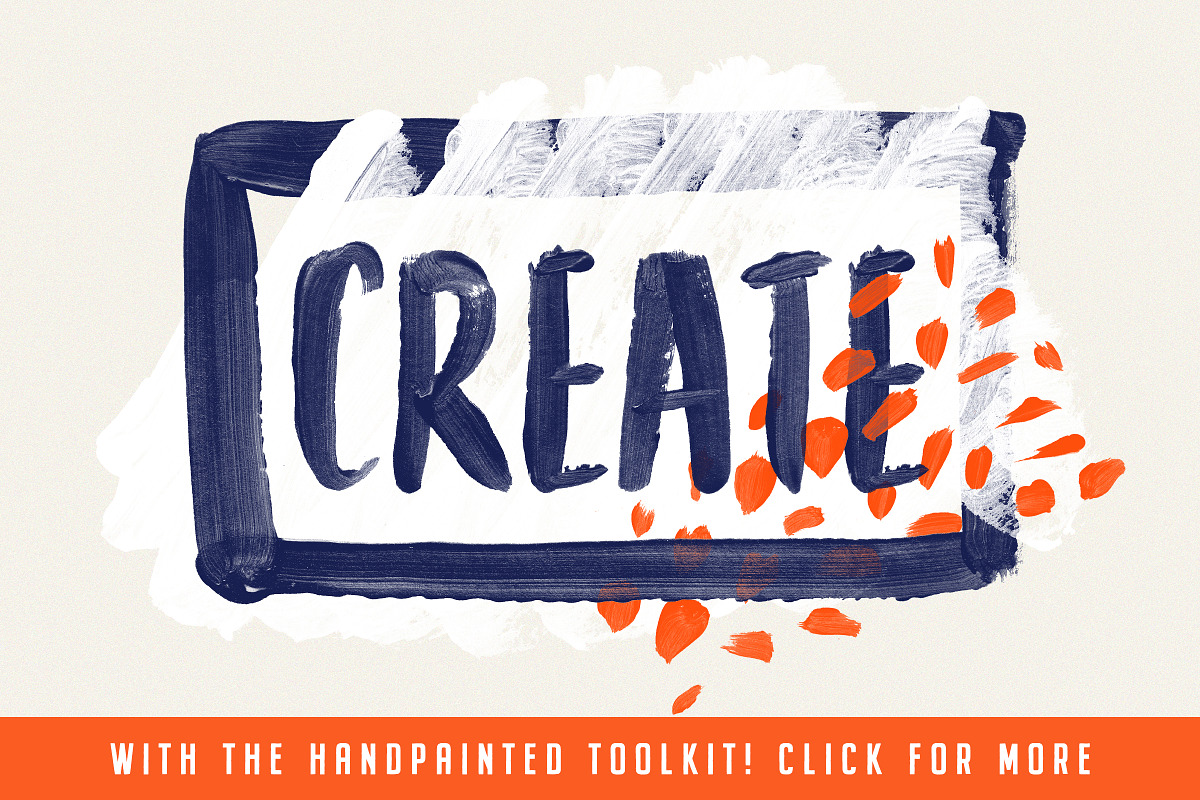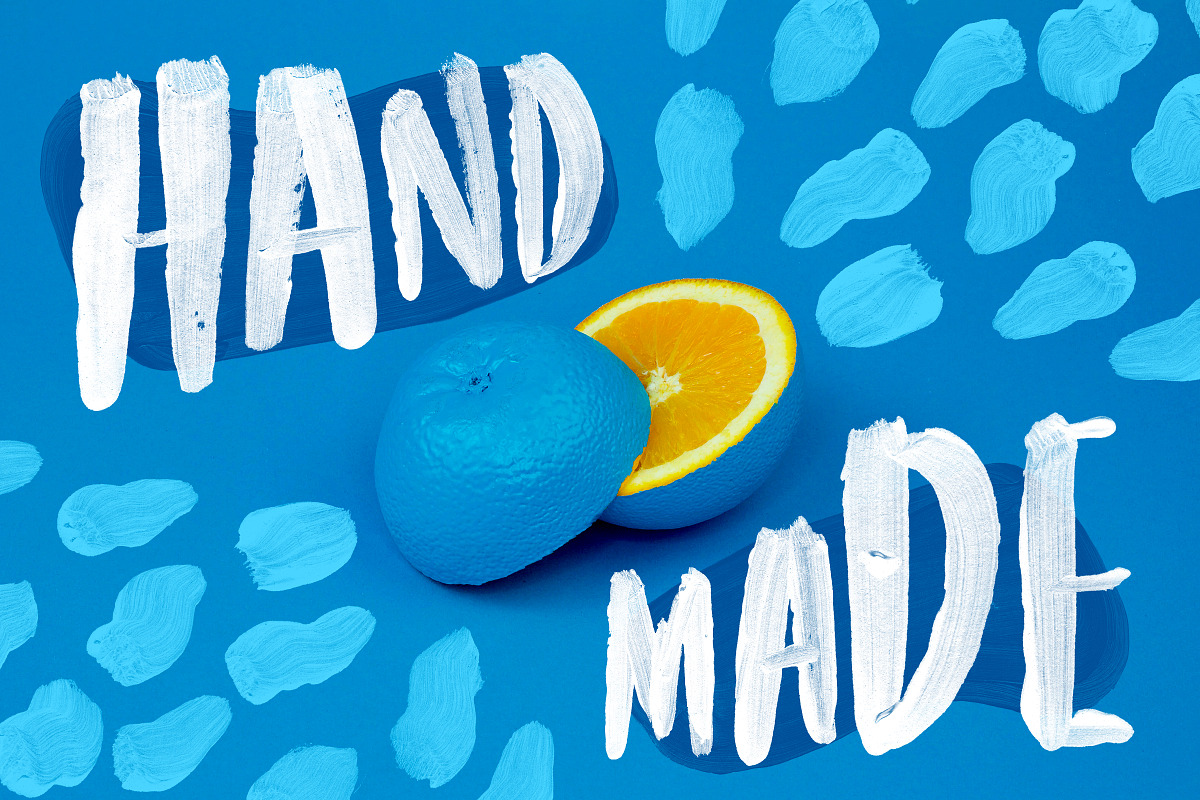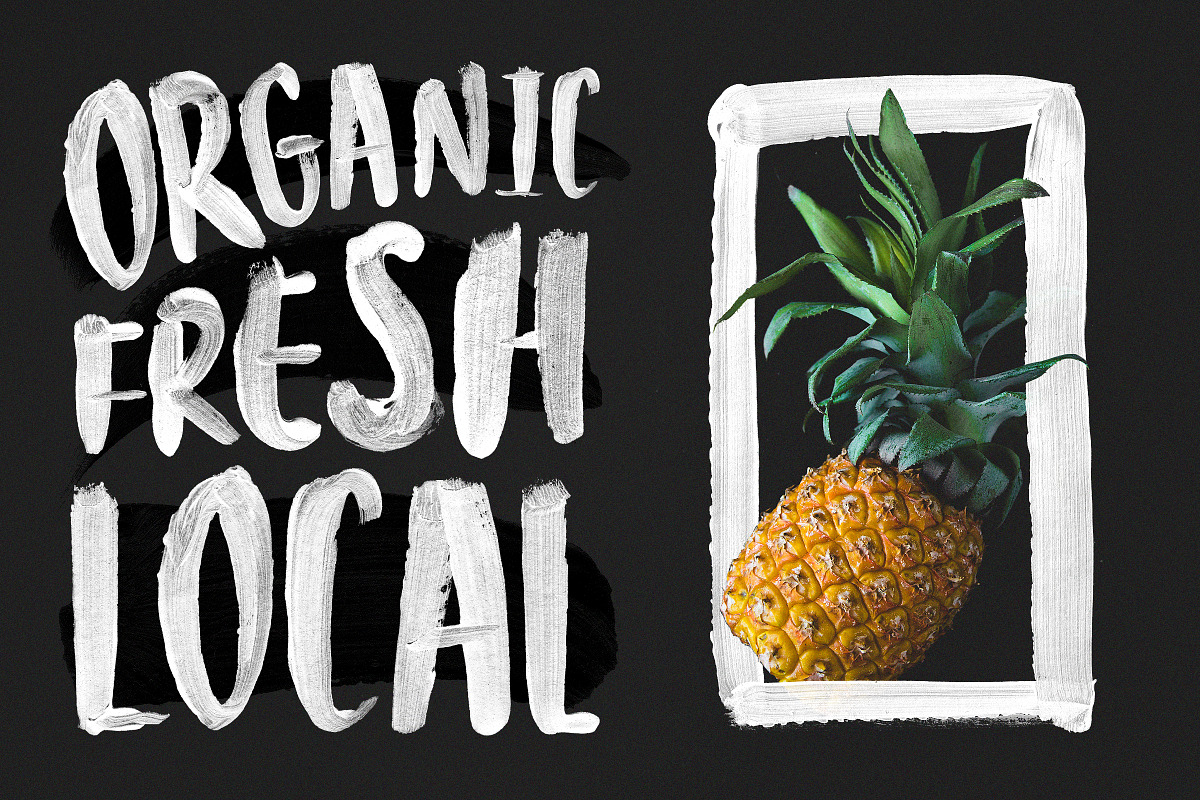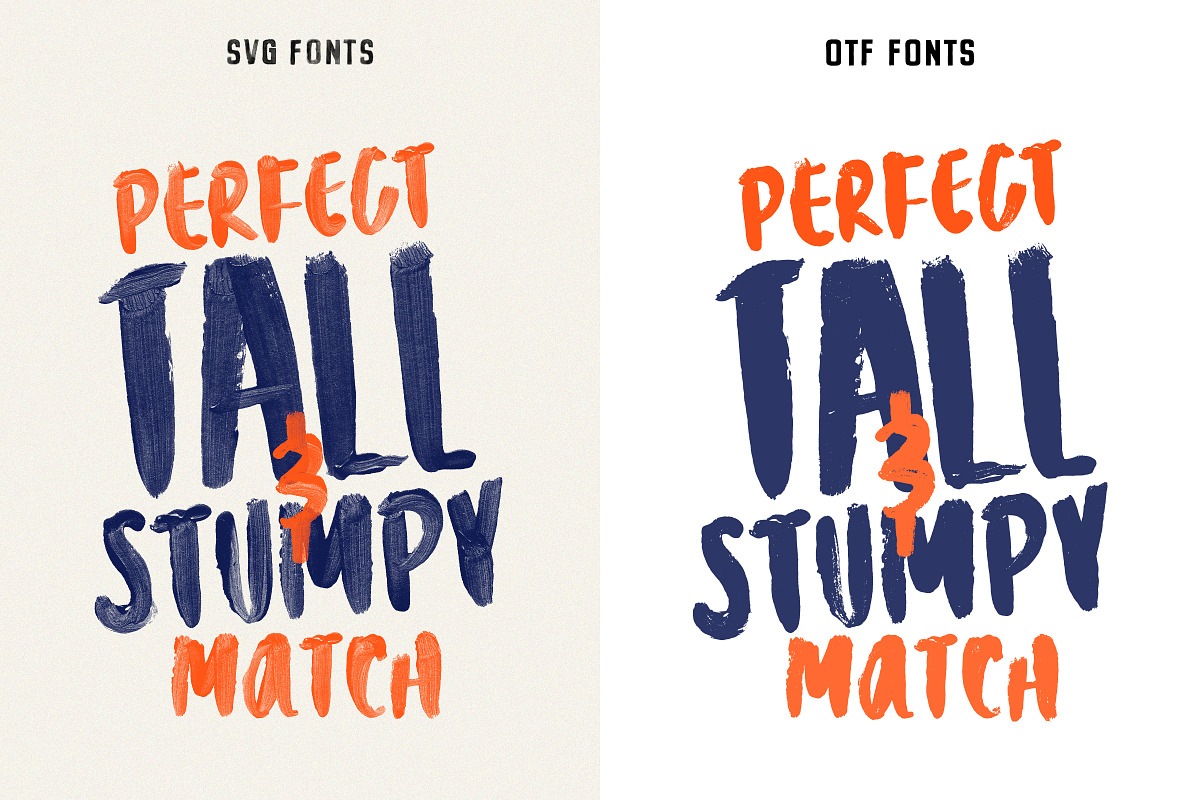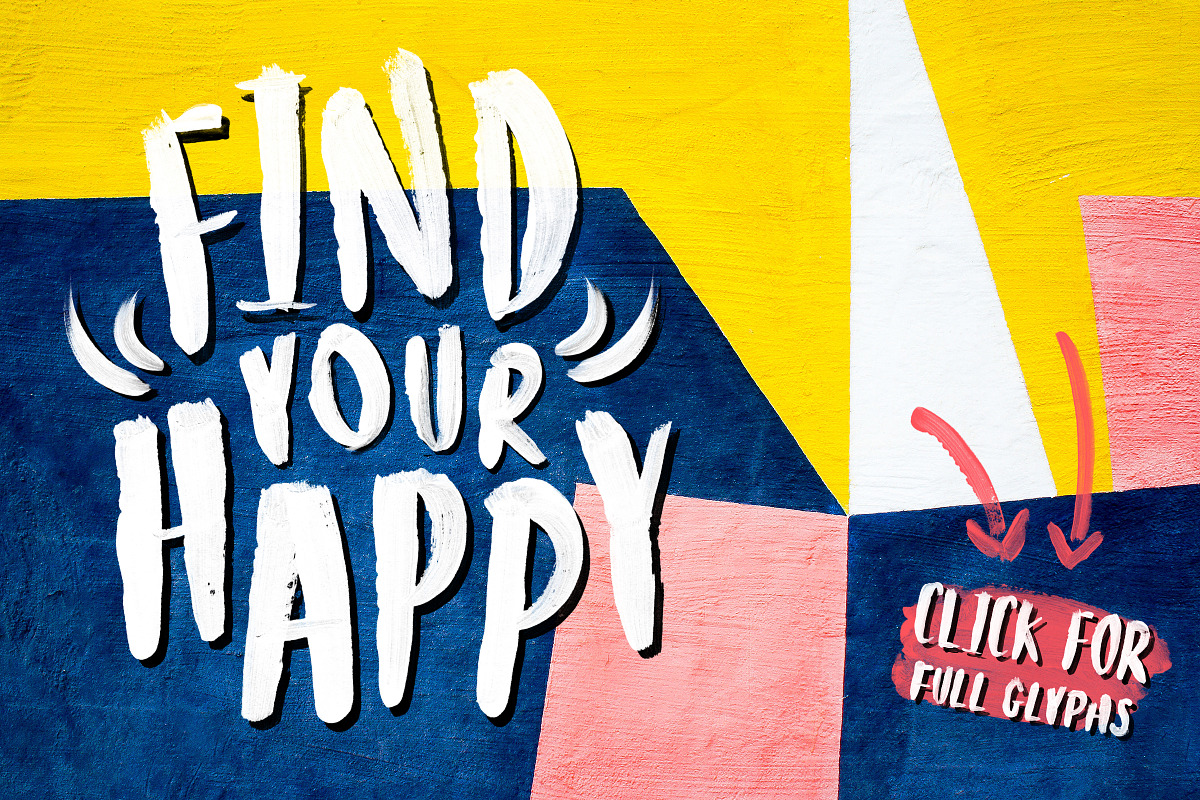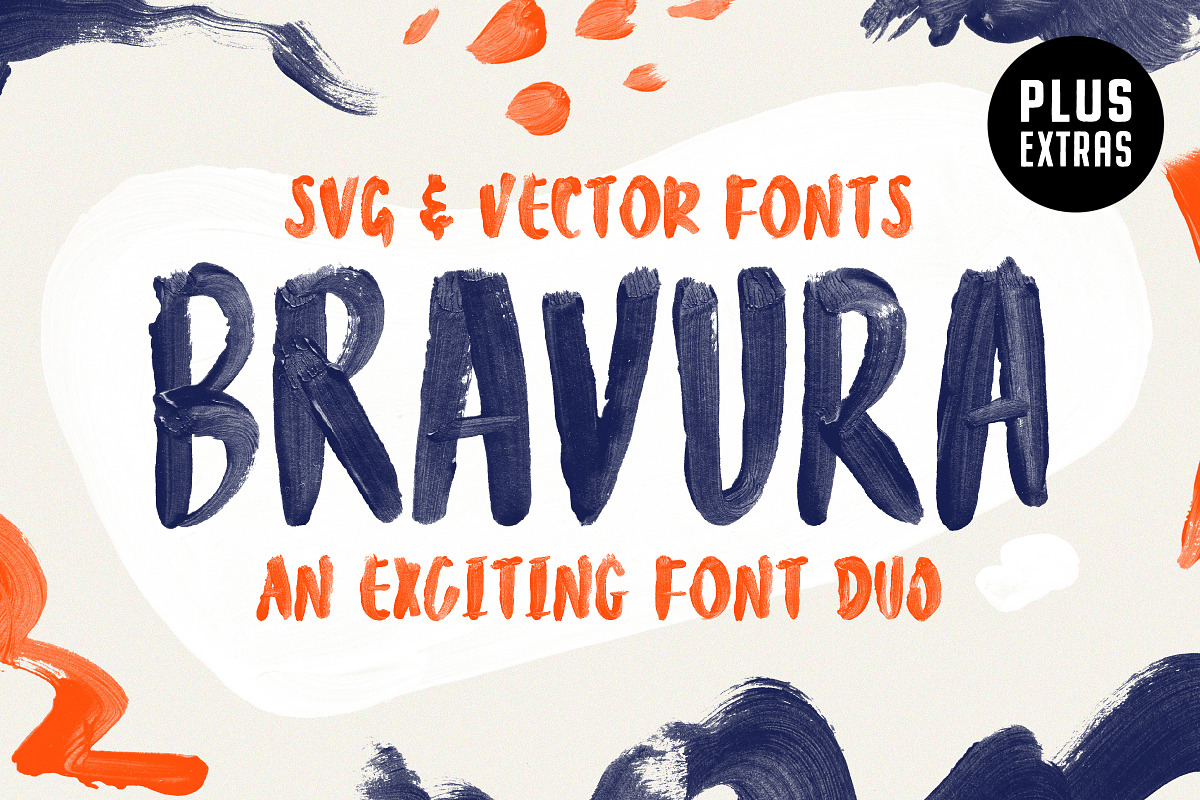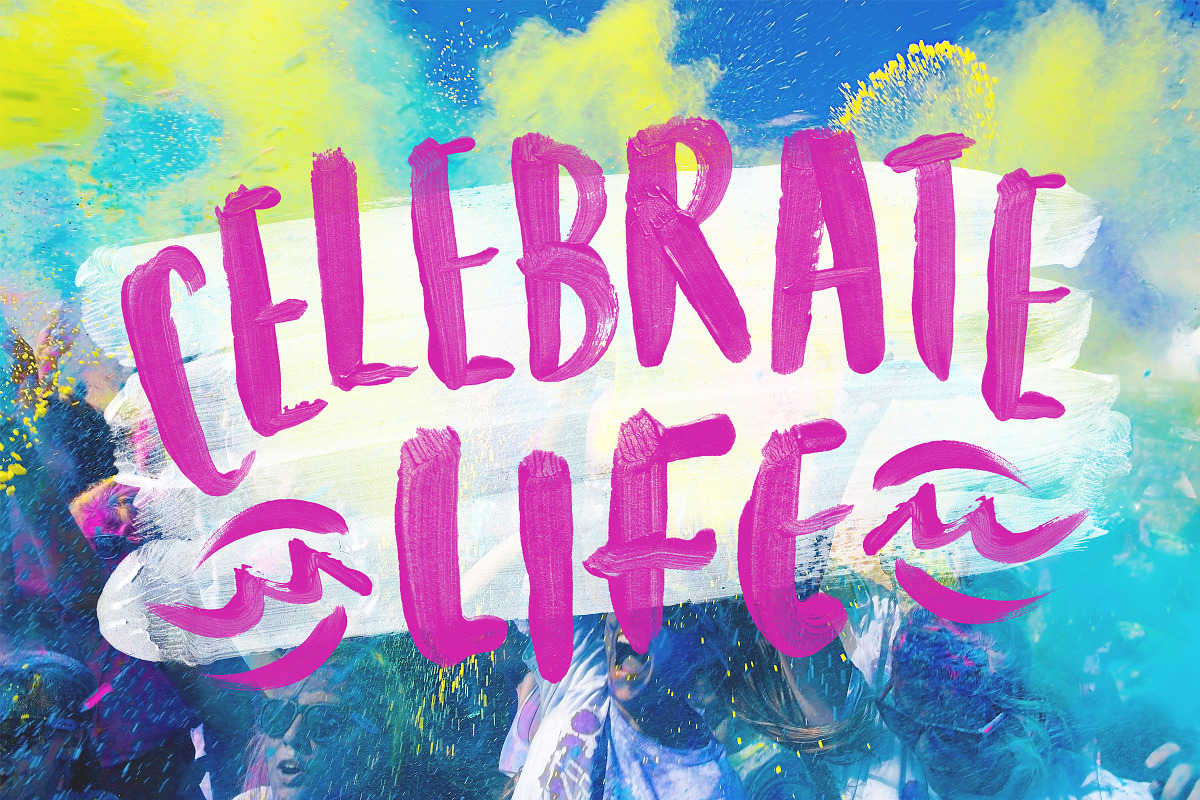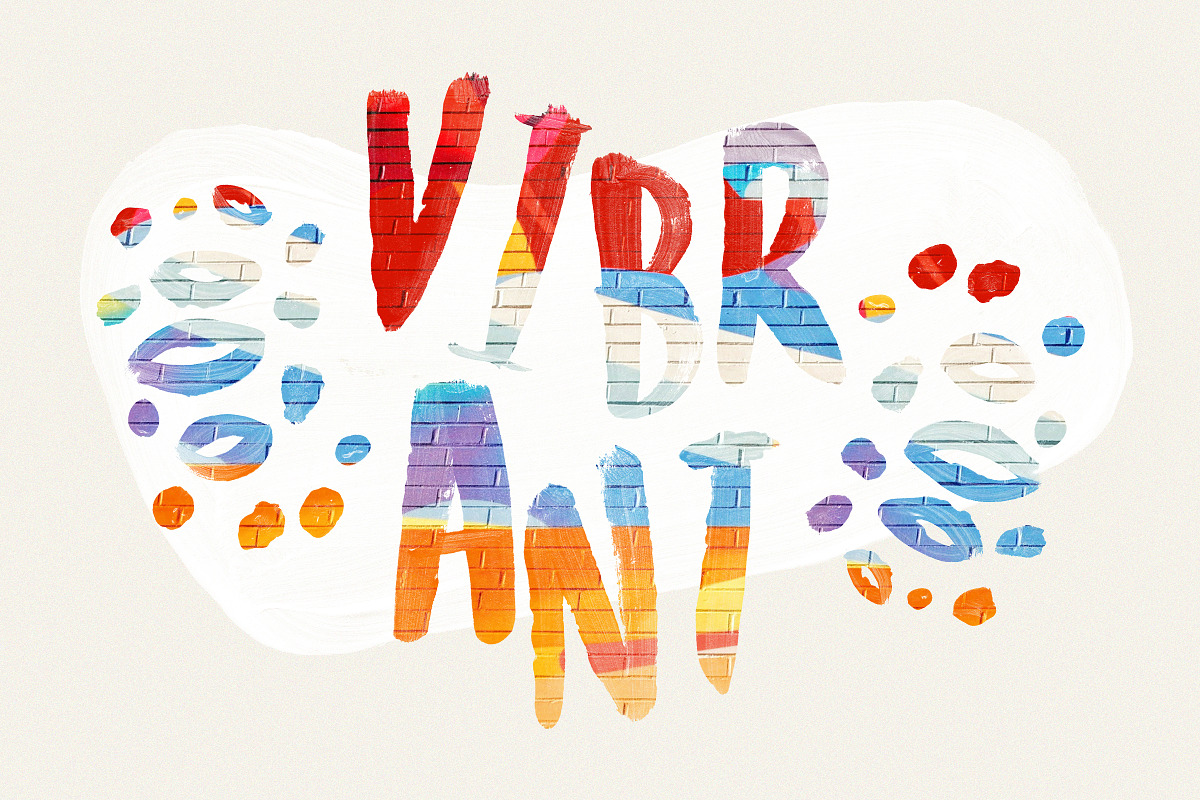
Bravura SVG Font Duo & Extras!
Introducing the Bravura SVG Font Duo: A bold and energetic brush font family full of pizzazz, quirkiness, and handpainted goodness. This excitable pair was designed to be loud, creative, and eye-catching. Making them perfect for the design of book covers, posters, apparel, packaging, editorial work, advertising, and more.
Jam-packed with extras! This dynamic duo contains a full set of alternate characters to help improve the handwritten authenticity of your designs as well as an SVG version of each! Also included are three high-resolution PSD files containing hundreds of handpainted design elements to give your designs that extra boost!
1. Bravura Tall: A quirky handpainted brush font and the taller of the pair. Better suited for taking center stage! Use this font if you require the traditional vector .OTF format but still the textures of an authentic brush font.
2. Bravura Stumpy: Just as quirky, but the stumpier of the pair. Better suited when complimenting it's taller sibling, although, just as prepared to take the mic. Use this font if you need the traditional vector format.
5. The Handpainted Toolkit: An extensive collection of high-resolution handpainted design elements that beautifully complement the aesthetics of the Bravura font family. From abstract shapes to arrows, from boxes to lines, naughts to crosses, and so much more.